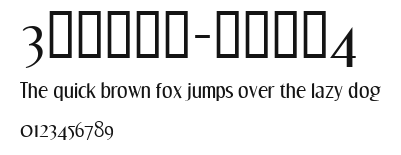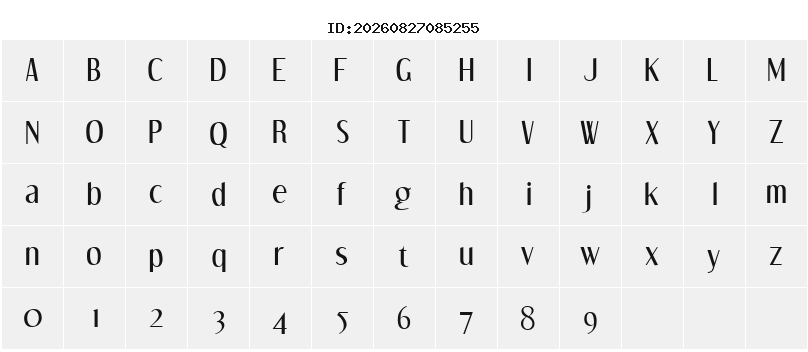
3代呼吸英文-服装雅致4 Preview
• Font Name: 3代呼吸英文-服装雅致4
• Font ID: Dream Orphans
• Full Font Name: 3代呼吸英文-服装雅致4
• PostScript Name: DreamOrphans
• Character Count: 534
About 3代呼吸英文-服装雅致4.ttf
3代呼吸英文-服装雅致4.ttf is a modern, elegant sans-serif font designed for ultimate readability and visual harmony. Perfect for branding, headlines, web design, and print materials.